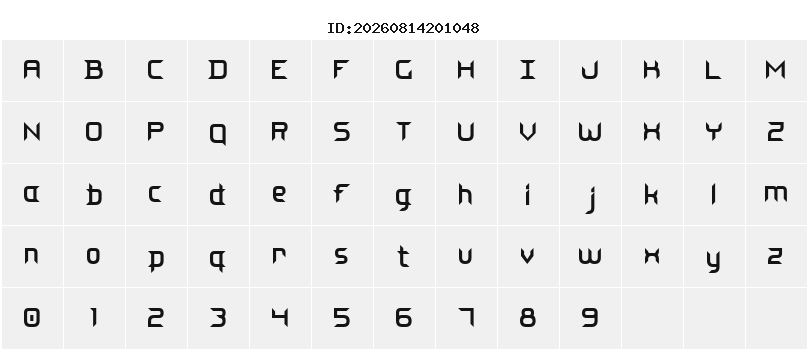
• Font Name: Steel Blade 7
• Designer: Sizenko Alexander
• Manufacturer: Style-7
About Steel Blade 7.ttf
Steel Blade 7.ttf is a modern, elegant sans-serif font designed for ultimate readability and visual harmony. Perfect for branding, headlines, web design, and print materials.